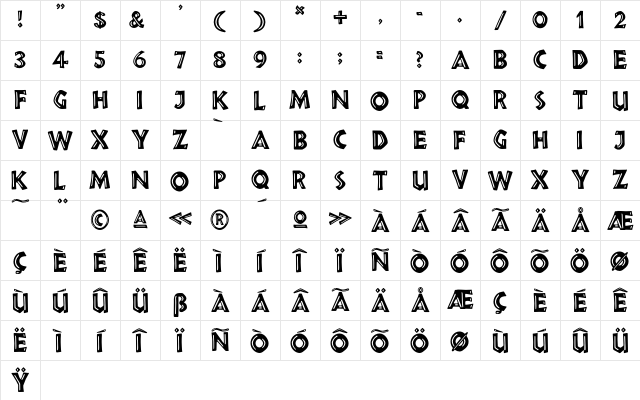
Chieftan Inline
Style: Inline
Design Context for Chieftan
Chieftan is built around its visual character rather than neutral utility - its distinctive forms are designed to make an impression at display sizes.
Font Pairing: Pair with a clean neutral sans-serif for body copy to let Chieftan's character lead without overwhelming the composition.
Pro Tip: Use Chieftan exclusively at display sizes - it was designed to be seen, not read at length. Let a neutral companion handle body copy.